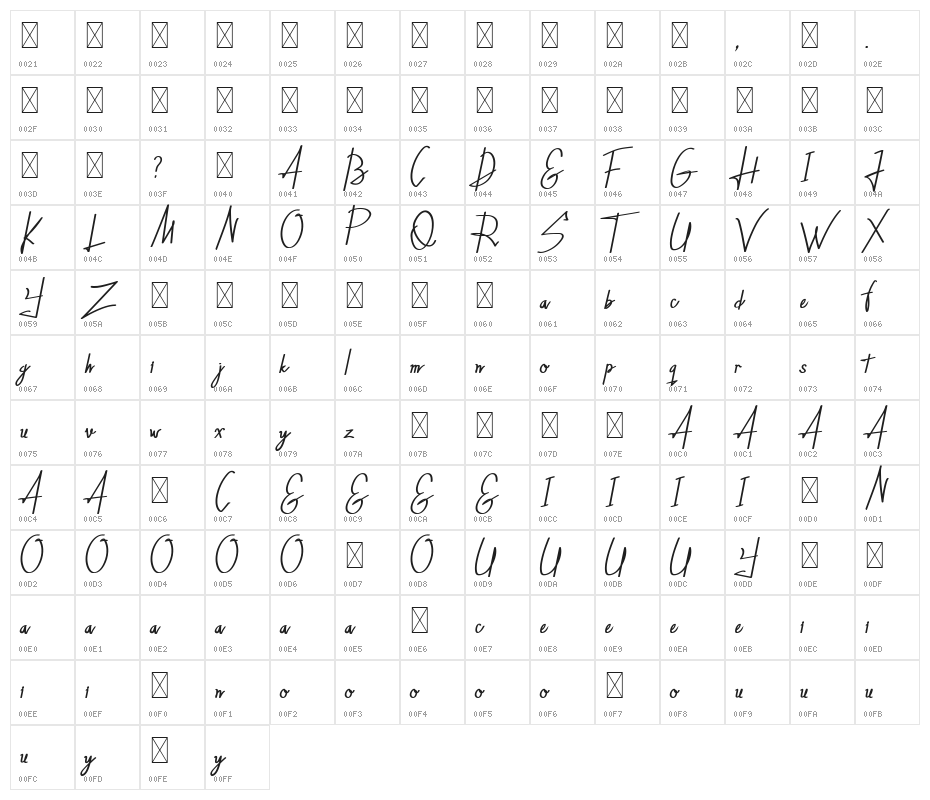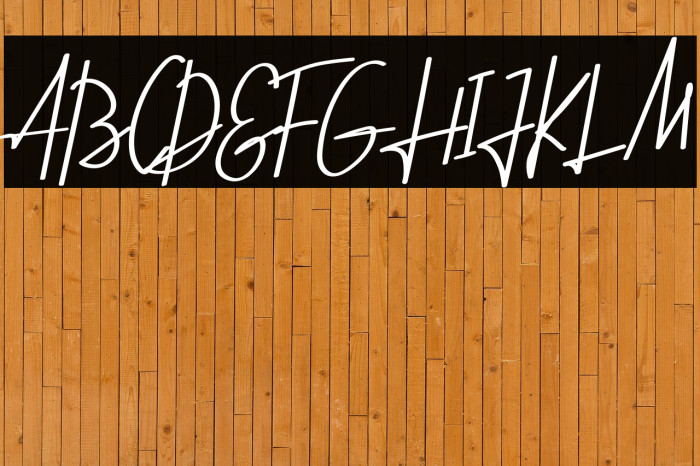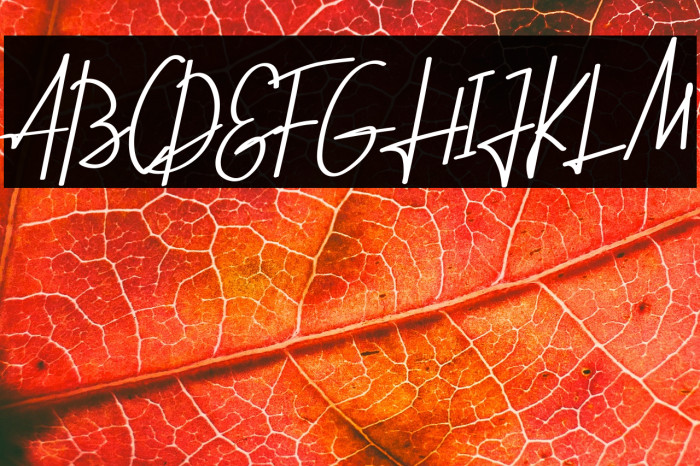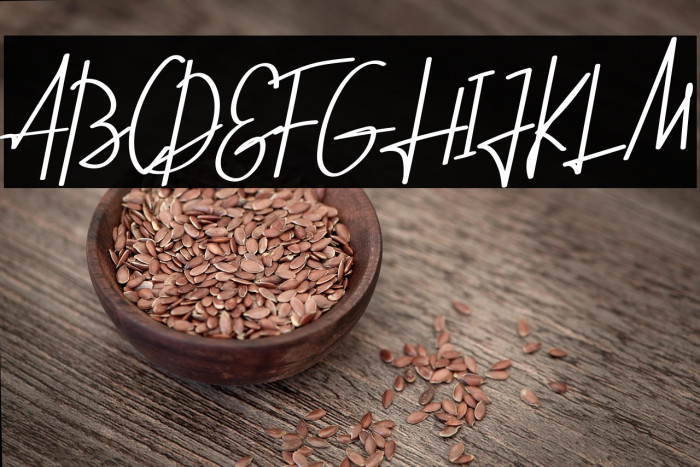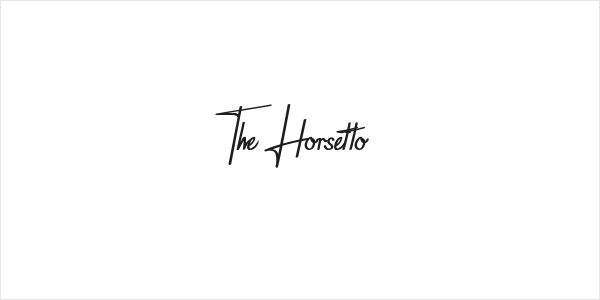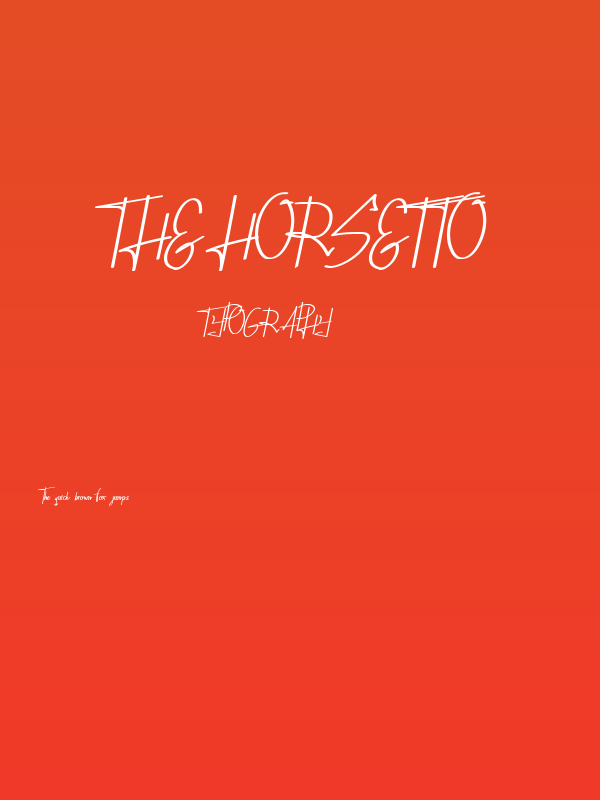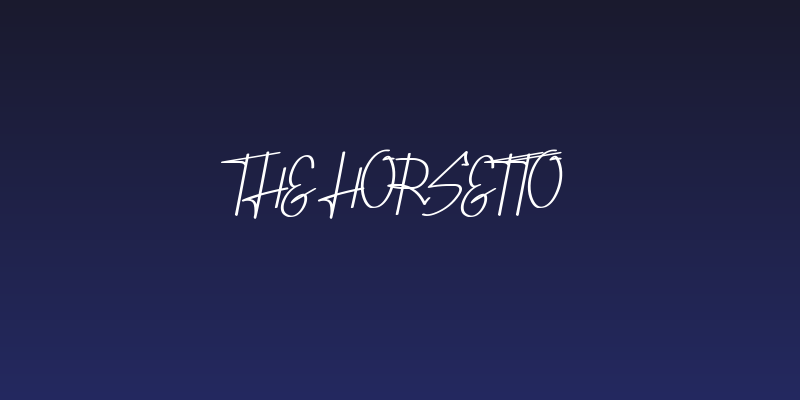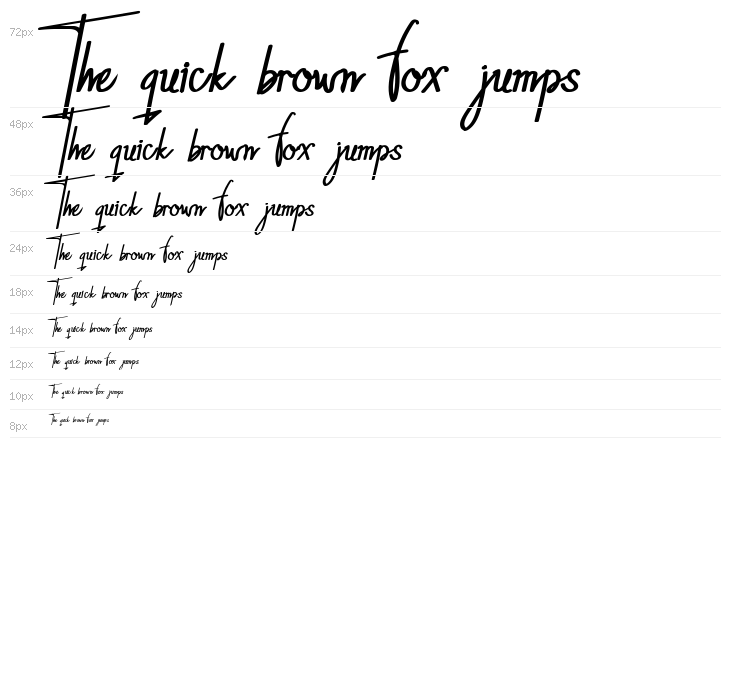
The Horsetto Font
The Horsetto Description
This font exhibits a dynamic and energetic style, characterized by its handwritten appearance with a distinct slant. The uppercase letters are bold and expressive, with exaggerated loops and strokes that convey a sense of movement. The lowercase letters maintain a consistent flow, complementing the uppercase with their cursive-like connections. The overall design is informal yet stylish, making it suitable for creative and artistic projects. The characters are slightly condensed, enhancing the compact and lively feel of the font. The absence of special characters suggests a focus on letterforms, emphasizing the font's unique personality.
| Use Case | Headlines, Artistic Branding |
| Proposed Projects | Ideal for creative projects such as posters, invitations, and artistic branding. |